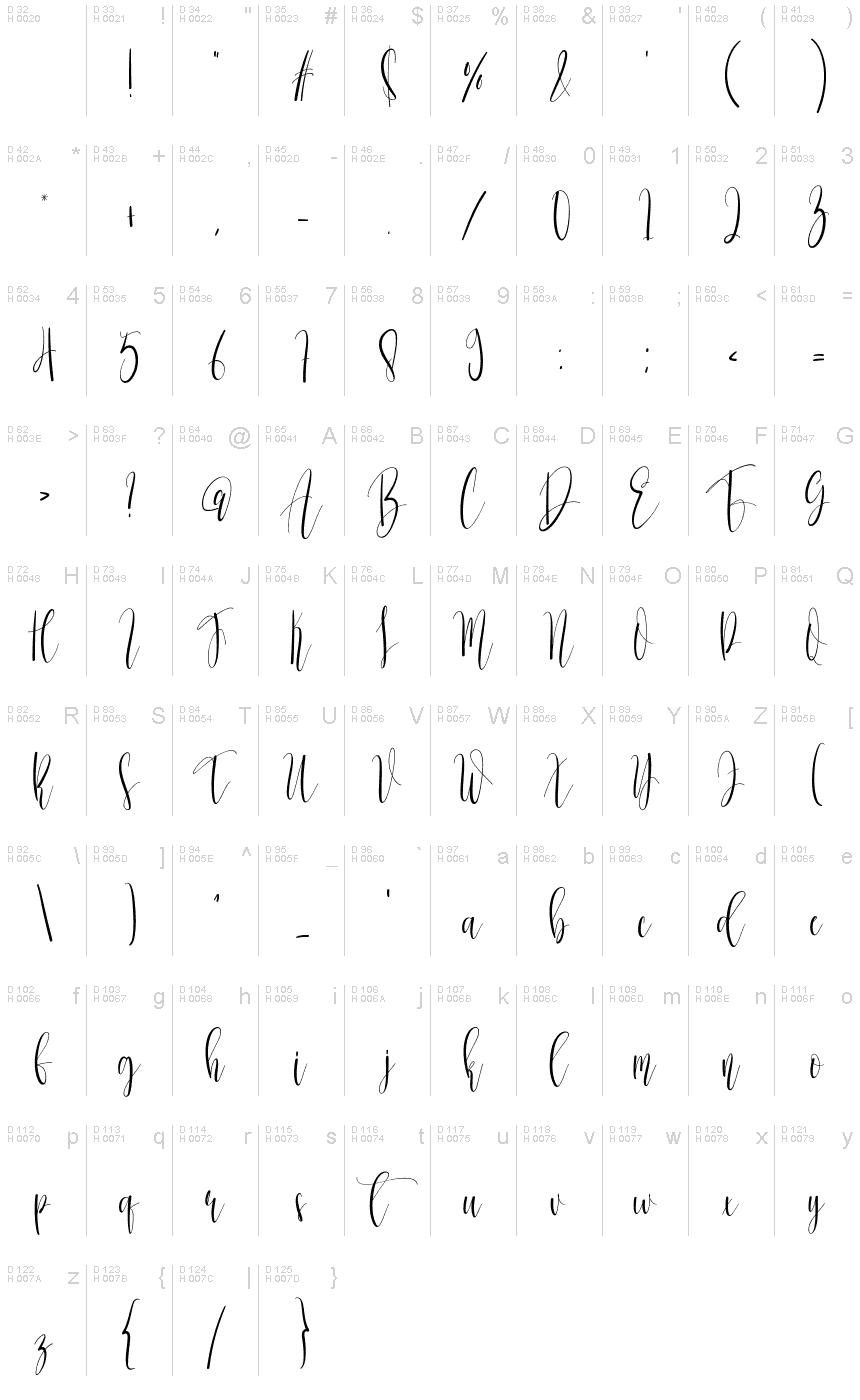
English
Introducing English font, a light and narrow handwritten font designed by scratchones. Perfect for crafting logos, invitations, and other creative projects requiring a unique touch. English font can also be used to add personality to webpages, books, magazines or even t-shirt designs.
the latest style letters are perfect for wall displays, wedding invitations, social media post logos,
advertisements, product packaging, product designs, labels, photography, watermarks, invitations, stationery,
and any project that requires taste handwriting.